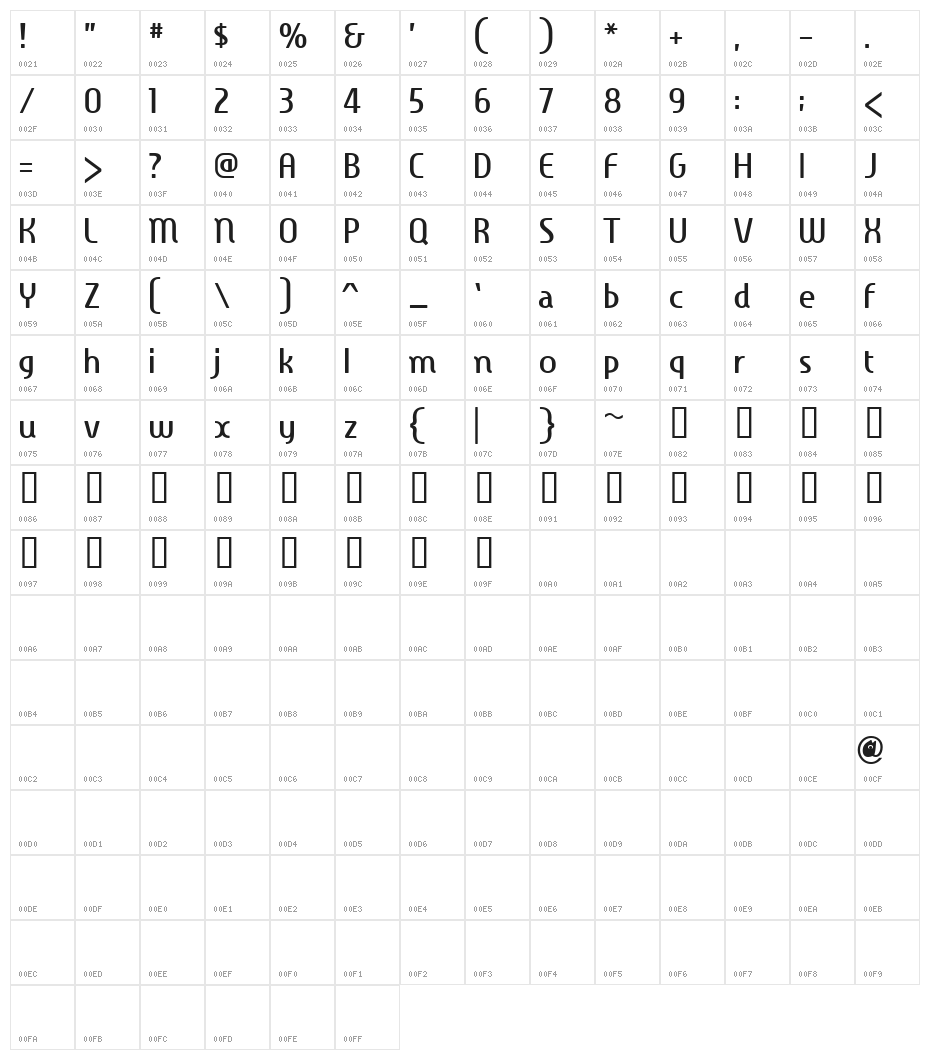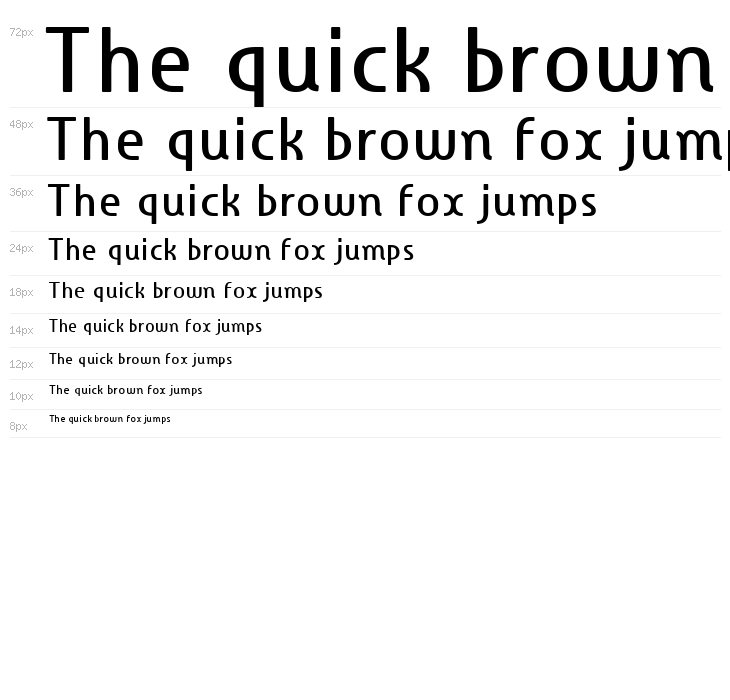
Familian Elder Font
Familian Elder Description
This font features a clean and modern sans-serif design with smooth curves and a slightly condensed appearance. The uppercase letters are uniform in height, providing a balanced and cohesive look. The lowercase letters maintain a consistent style, with rounded edges that add a touch of softness. The numerals are clear and legible, making them suitable for various applications. Special characters are well-integrated, maintaining the overall aesthetic. The font's simplicity and elegance make it versatile for both digital and print media.